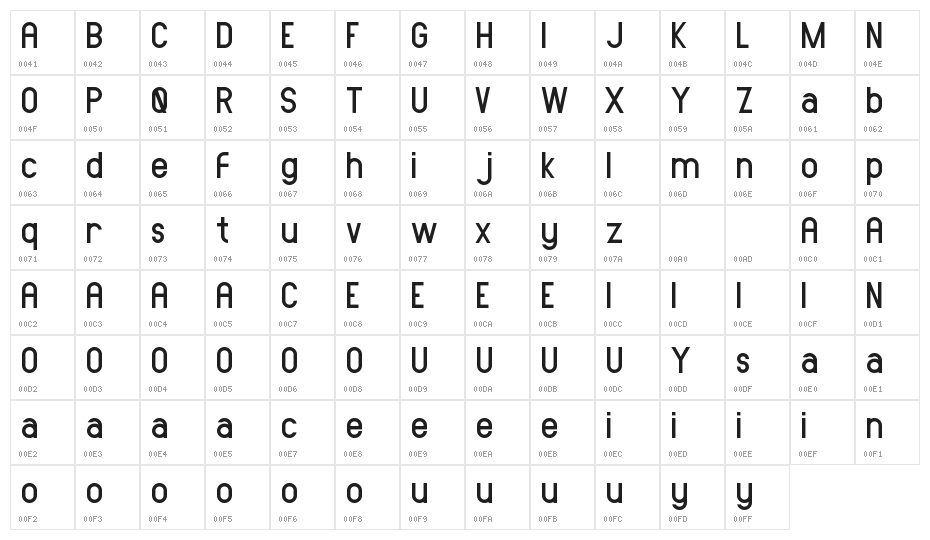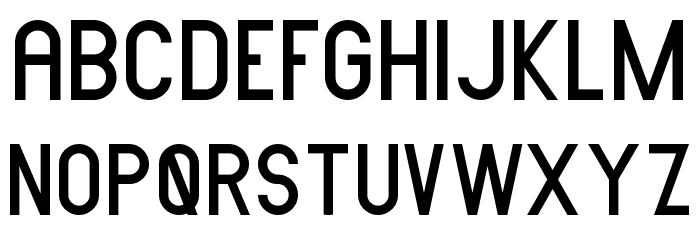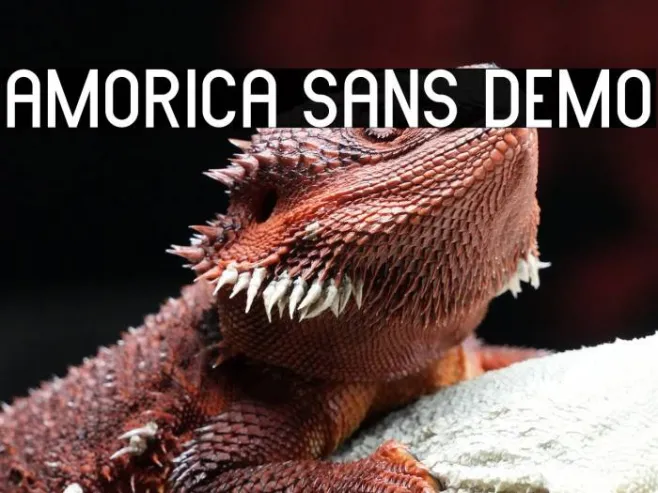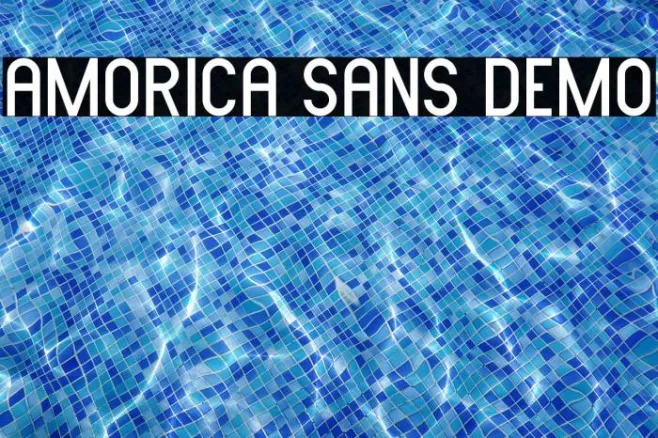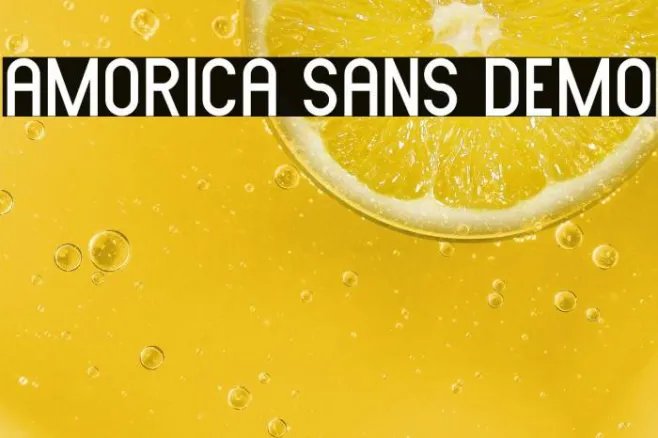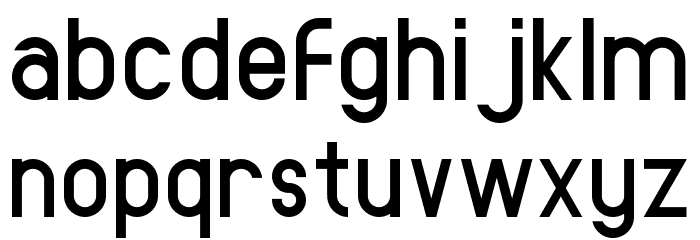
AMORICA SANS DEMO Font
AMORICA SANS DEMO Description
This font features a clean and modern sans-serif design with a uniform stroke width that provides a balanced and harmonious appearance. The characters are well-proportioned, with a slightly condensed structure that enhances readability while maintaining a sleek aesthetic. The uppercase letters are bold and assertive, while the lowercase letters offer a softer, more approachable feel. The numerals are clear and distinct, making them suitable for various applications. The special characters are designed to integrate seamlessly with the rest of the font, ensuring consistency across different uses.